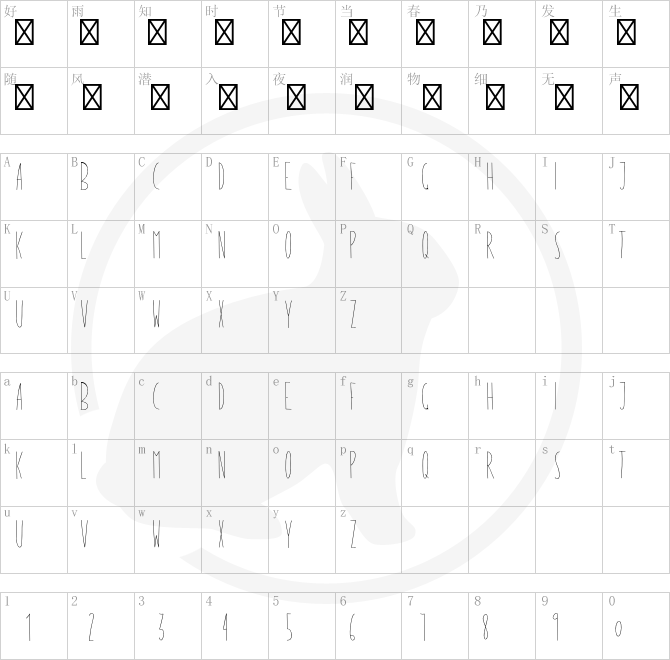
- Font Name:Fab Craft
Fab-Craft.otf is a very beautiful artistic font, Fab-Craft.otf is widely used in the design and printing of various books and pictures,Fab-Craft.otf has a strong visual impact,Fab-Craft.otf is a commonly used font in newspapers, magazines and books, and is used in posters, e-commerce Poster design, store design, logo design, font design and other fields.Fab-Craft.